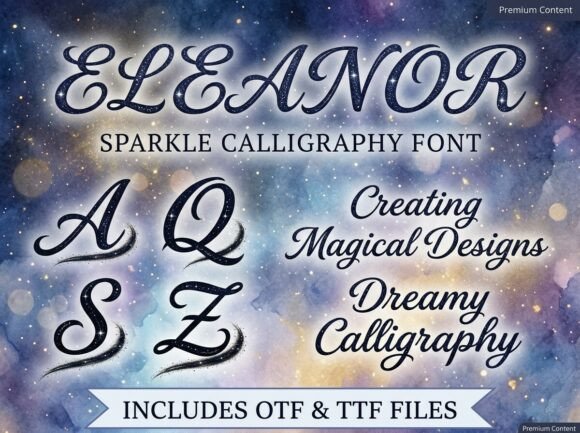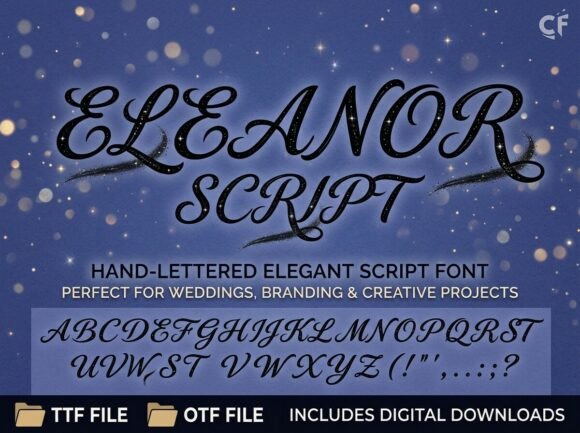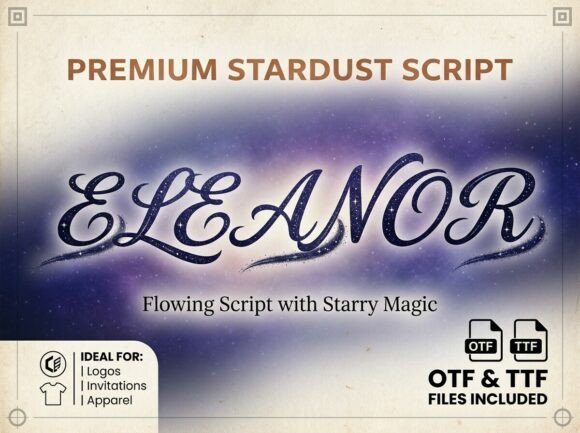
Eleanor Font: Add a Touch of Starry Magic to Your Creative Projects
Are you looking for a font that can add a dash of magic to your creative projects? Look no further than Eleanor, a premium flowing script that captures the breathtaking essence of “starry magic.” This elegant typeface is perfect for designers and crafters who want to create mystical, celestial, and dream-inspired designs that shine as bright as the night sky.
The Elegance of Eleanor Font
Eleanor Font is a masterpiece of calligraphic design, featuring a graceful, flowing rhythm that is reminiscent of traditional calligraphy. The font’s elegant lines and curves are adorned with a mesmerizing internal stardust texture, giving it a truly magical feel. Whether you’re designing a luxury beauty brand, a celestial-themed wedding invitation, or a dream-inspired apparel line, Eleanor Font is the perfect choice.
Perfect for Mystical Branding
In today’s competitive market, branding is everything. With Eleanor Font, you can create a mystical and enchanting brand identity that sets you apart from the rest. The font’s unique blend of elegance and whimsy makes it perfect for luxury brands, spiritual organizations, and wellness businesses. Use Eleanor Font to create a logo, business card, or packaging design that shines with starry magic.
Celeestial-Themed Wedding Invitations
Are you planning a wedding that’s out of this world? Eleanor Font is the perfect choice for celestial-themed wedding invitations, stationery, and decor. The font’s flowing script and stardust texture evoke the magic of the night sky, making it perfect for couples who want to add a touch of romance and whimsy to their special day.
Dream-Inspired Apparel
Designers and crafters, rejoice! Eleanor Font is perfect for creating dream-inspired apparel that’s both stylish and enchanting. Use the font to create t-shirts, hoodies, or tote bags that feature inspirational quotes, lyrics, or phrases. The font’s elegant lines and curves make it perfect for designing apparel that’s both fashionable and meaningful.
Luxury Beauty Packaging
In the world of luxury beauty, packaging is everything. With Eleanor Font, you can create stunning packaging designs that shine with starry magic. The font’s elegant lines and curves make it perfect for designing labels, packaging, and branding materials for luxury skincare, haircare, and cosmetics brands.
Why Choose Eleanor Font?
So, why choose Eleanor Font for your creative projects? Here are just a few reasons:
- Elegant Design: Eleanor Font features a graceful, flowing script that’s perfect for creating elegant and sophisticated designs.
- Unique Texture: The font’s internal stardust texture adds a touch of magic to your designs, making them truly unique and eye-catching.
- Versatile: Eleanor Font is perfect for a wide range of design projects, from branding and packaging to apparel and wedding invitations.
- High-Quality: Eleanor Font is a premium font that’s designed to deliver high-quality results, even at large sizes.